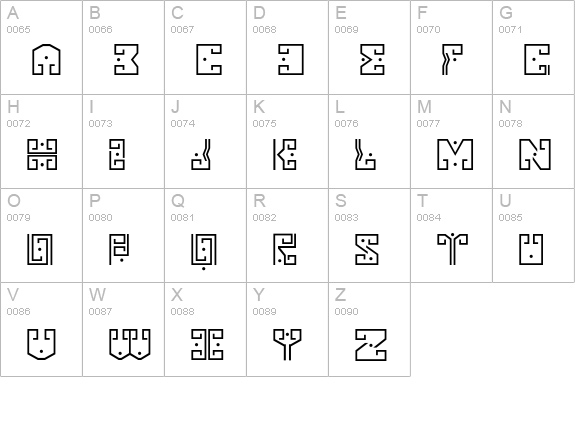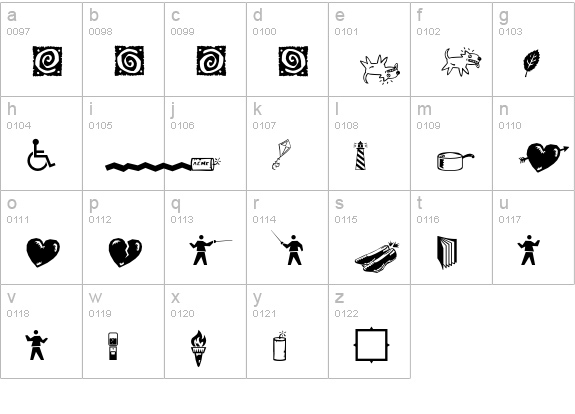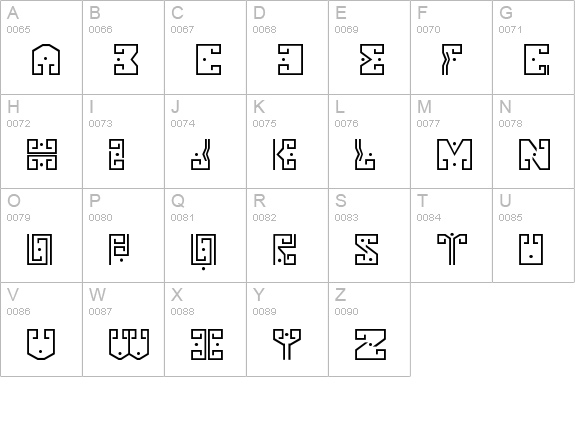
AIEclecticTwo Font Details
AIEclecticTwo is a captivating and versatile font that embodies a perfect blend of elegance and modernity. With its unique aesthetic appeal and balanced proportions, this font is sure to make your designs stand out. The intricate details of each character add a touch of sophistication to any project, while maintaining a clean and legible look. What sets AIEclecticTwo apart is not only its visually appealing design, but also its accessibility. This exceptional font is freely available to download at FontsMarket.com, making it a valuable addition to any designer's toolkit without breaking the bank. Whether you're working on a branding project, website design, or any creative endeavor, AIEclecticTwo offers endless possibilities to elevate your work to the next level. Embrace the beauty and versatility of AIEclecticTwo font today, and let your creativity soar with this stunning typeface that is as unique as it is freely accessible.